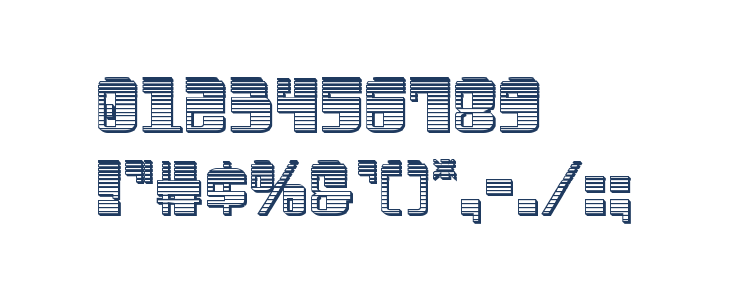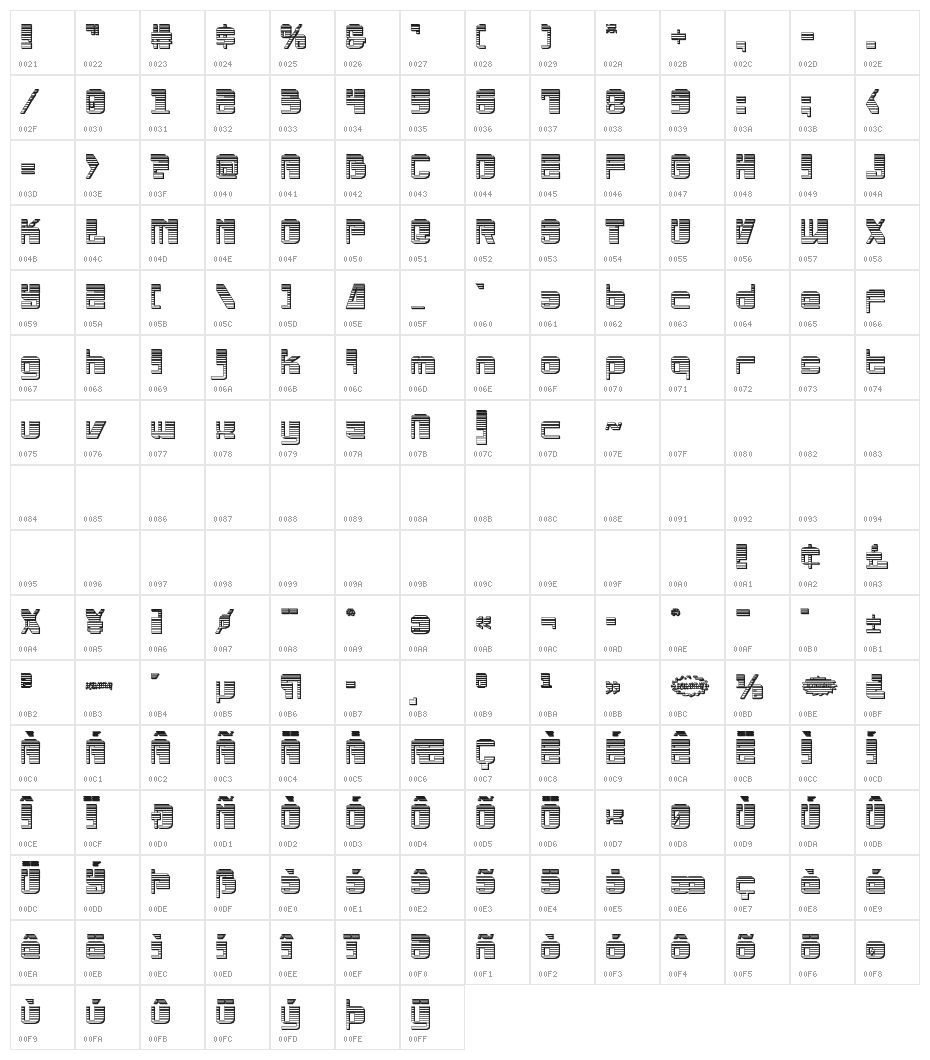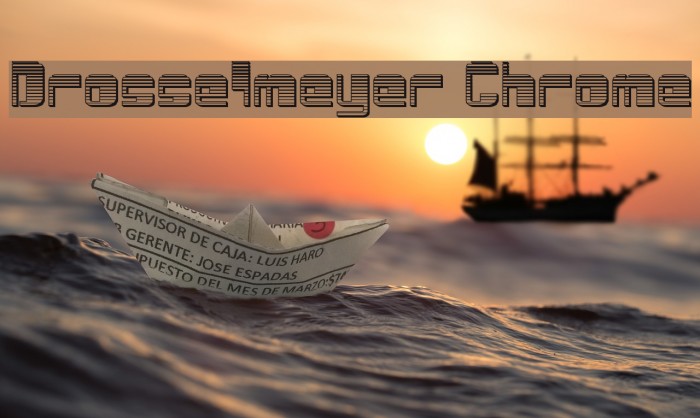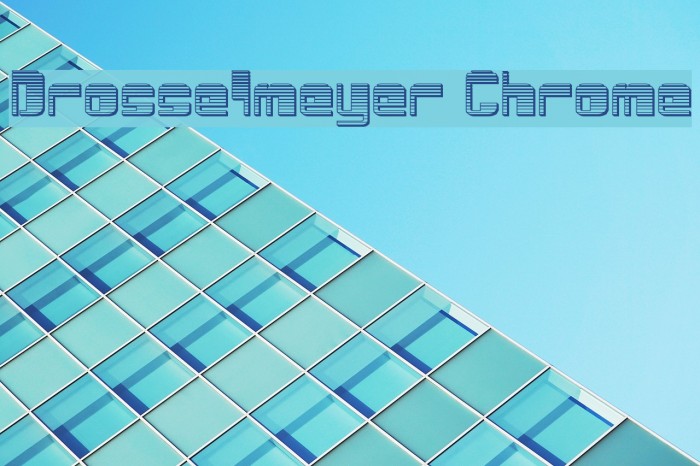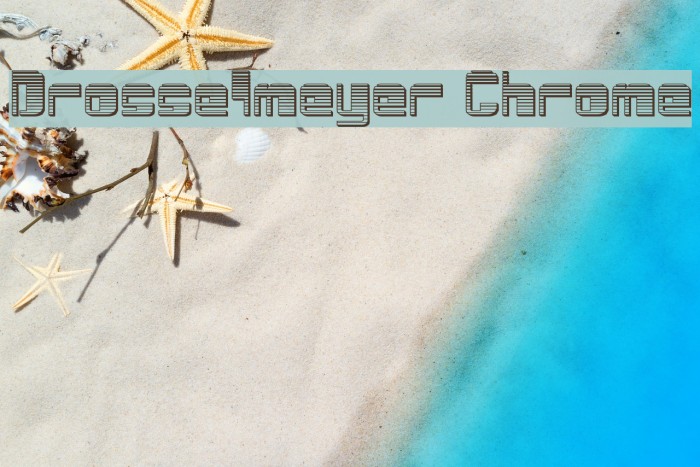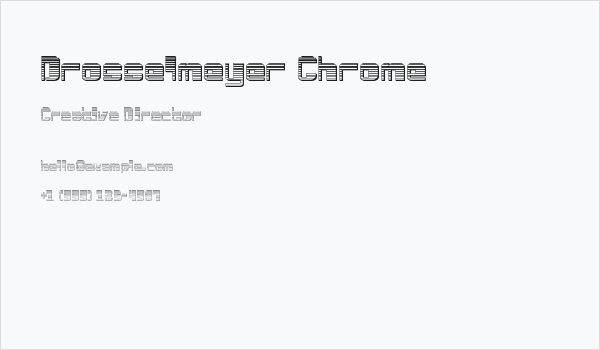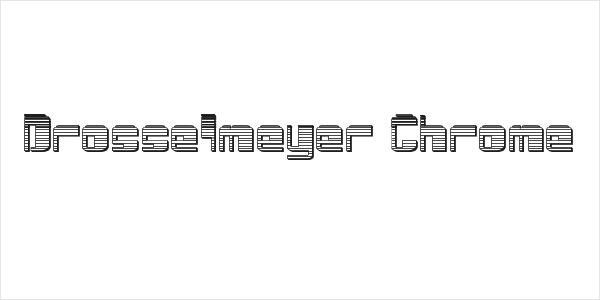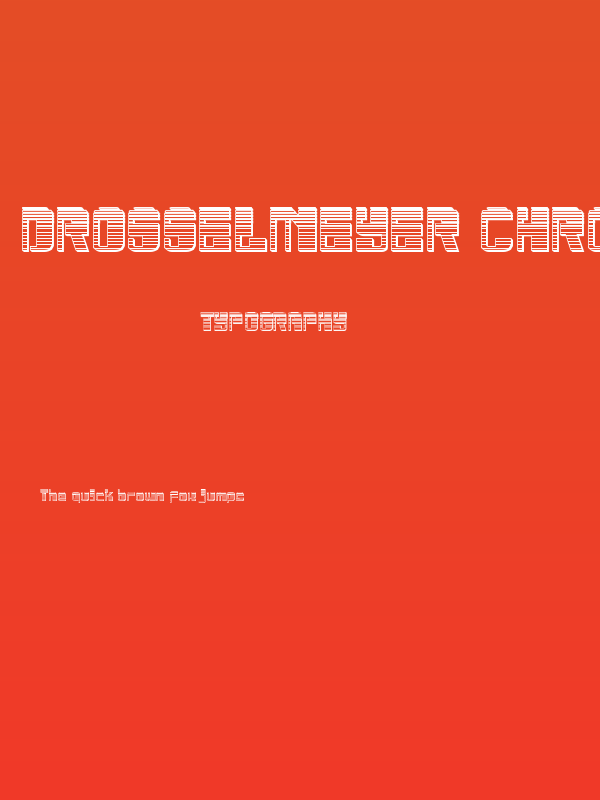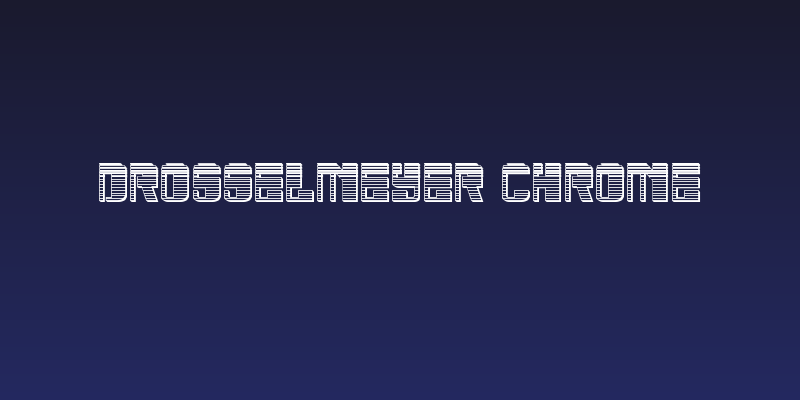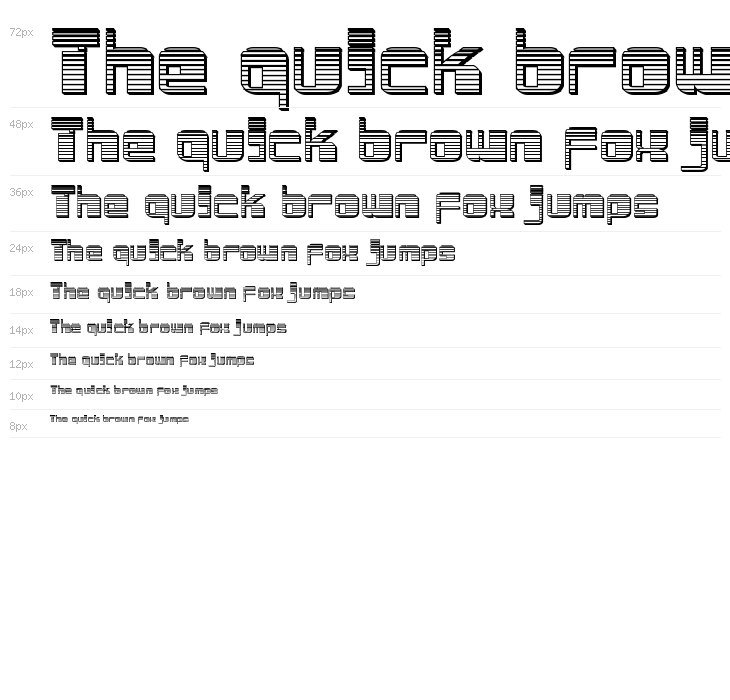
Drosselmeyer Chrome Font
Drosselmeyer Chrome Description
This font features a unique, decorative style with a distinct striped pattern running horizontally across each character. The uppercase and lowercase letters maintain a consistent width, giving it a monospaced appearance. The design is bold and eye-catching, making it suitable for attention-grabbing headlines or artistic projects. The characters are well-defined with a modern, futuristic aesthetic, and the numbers and special characters follow the same design principles, ensuring uniformity across all glyphs.